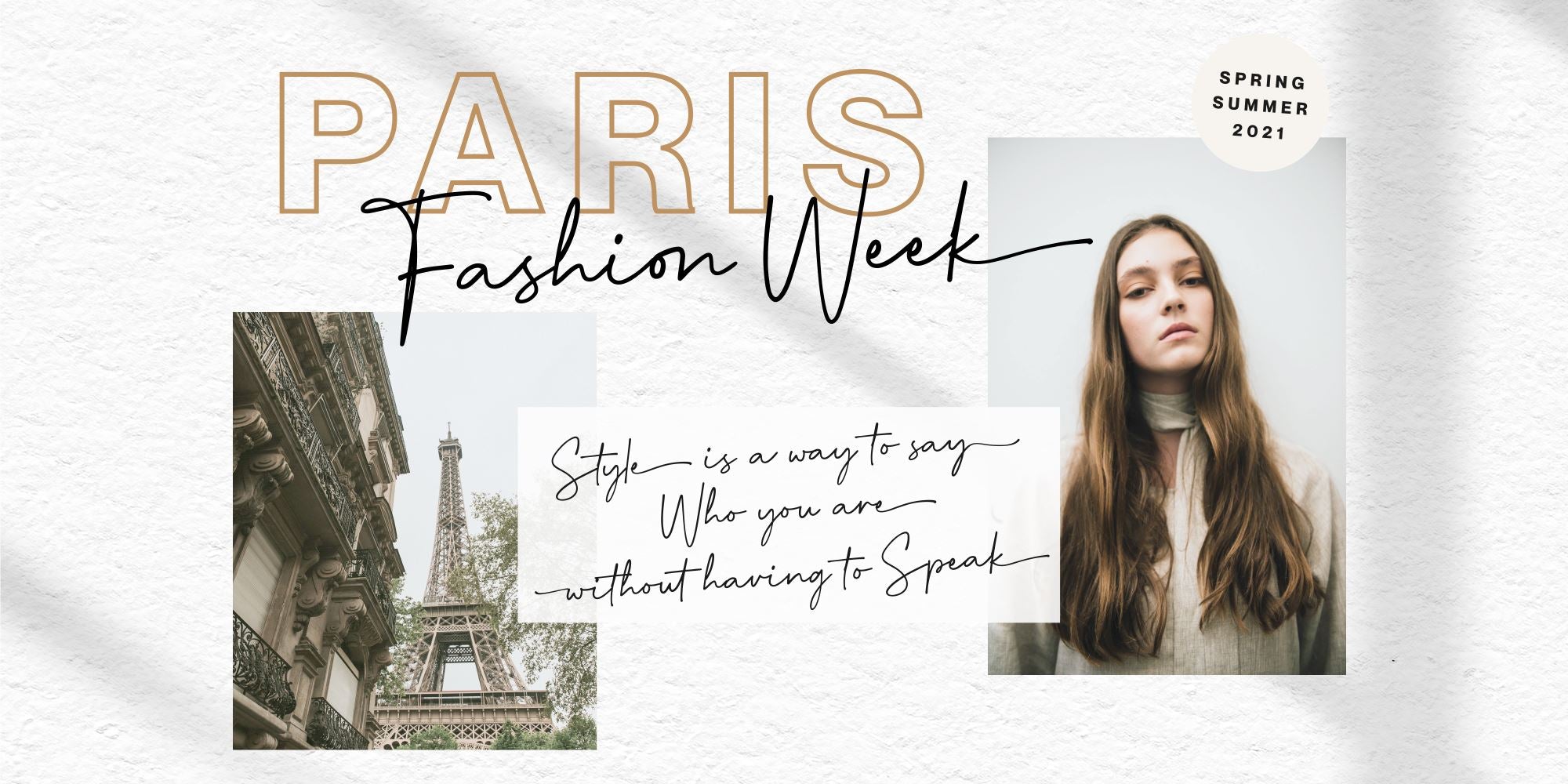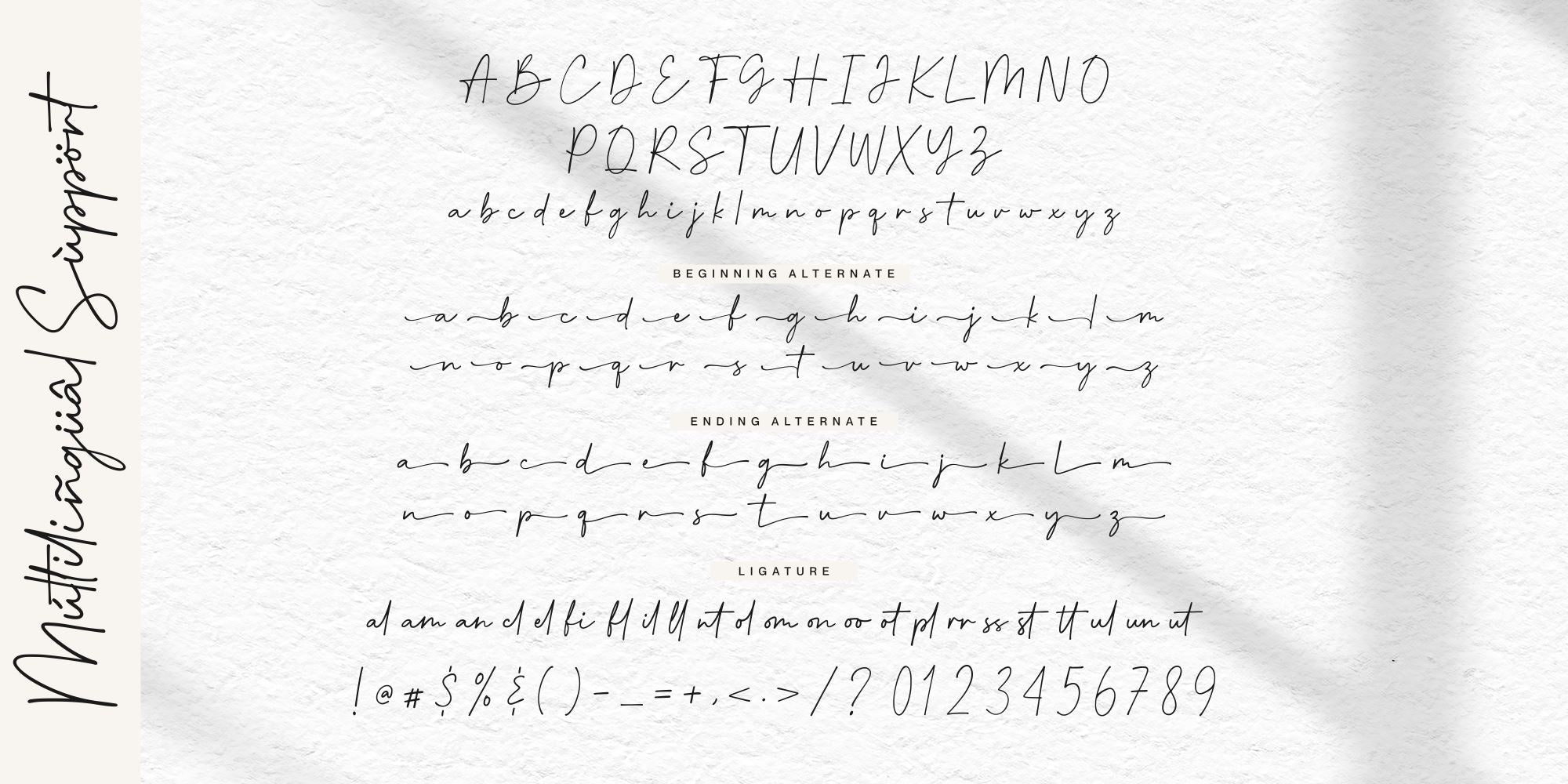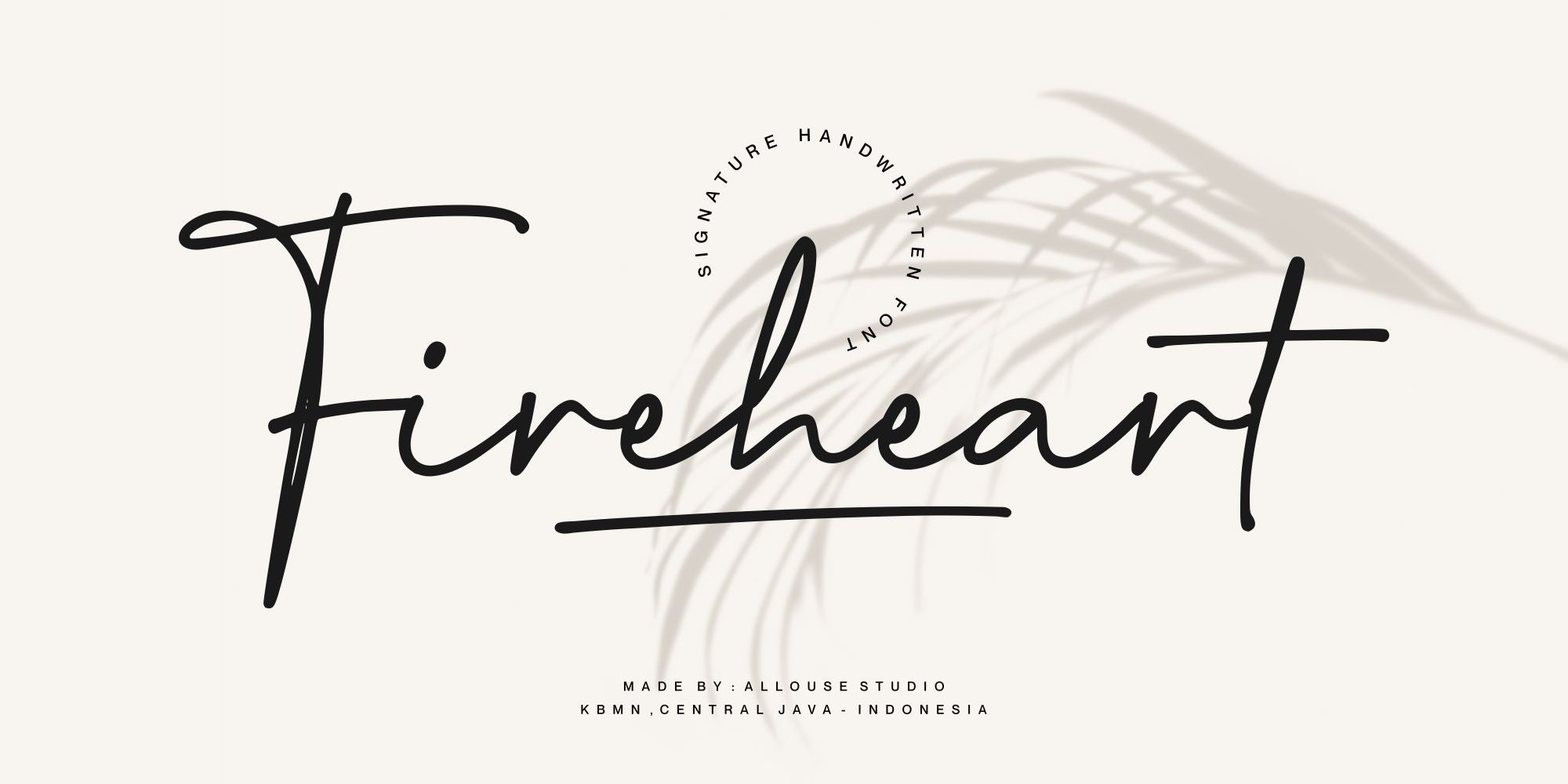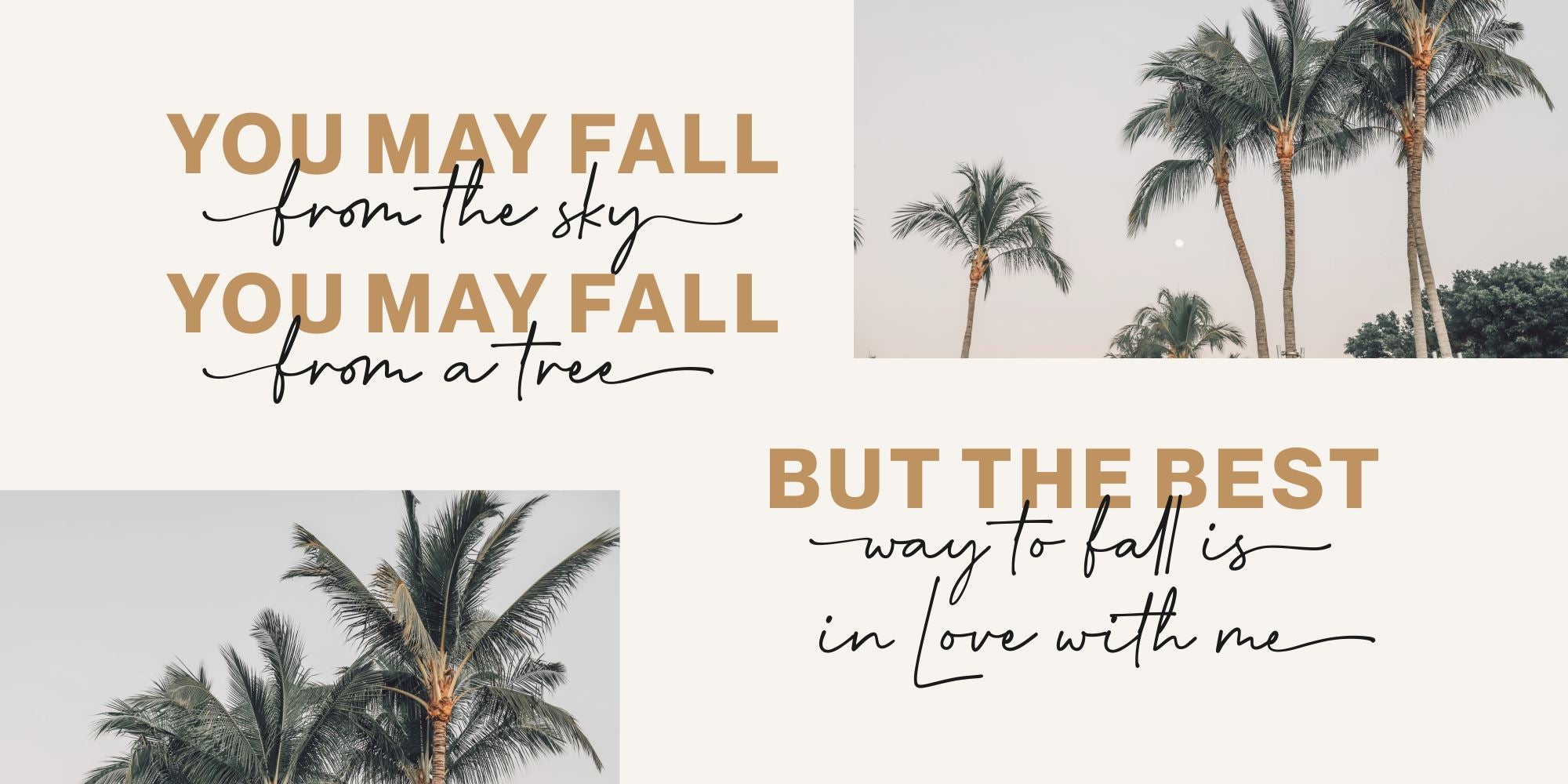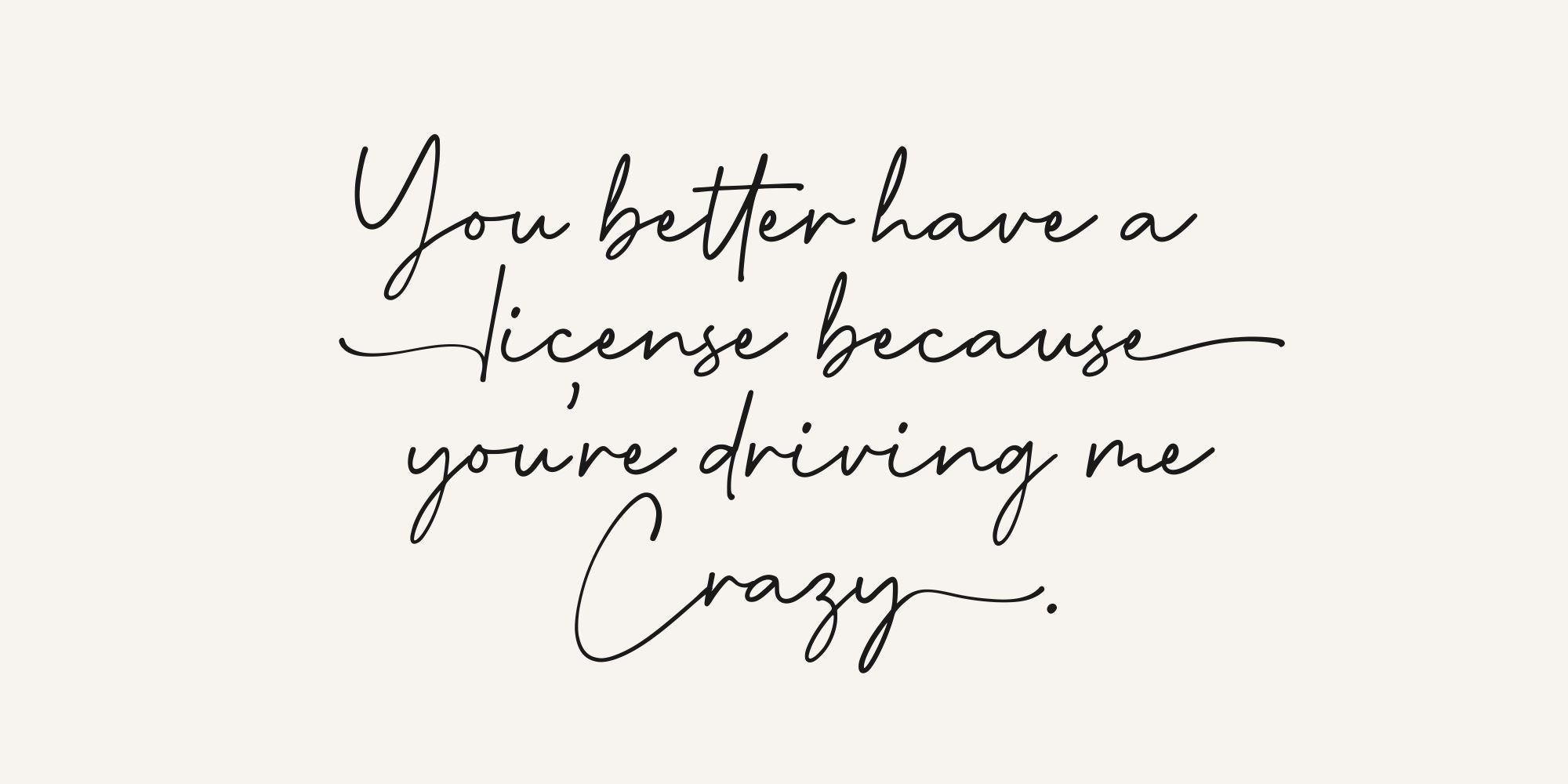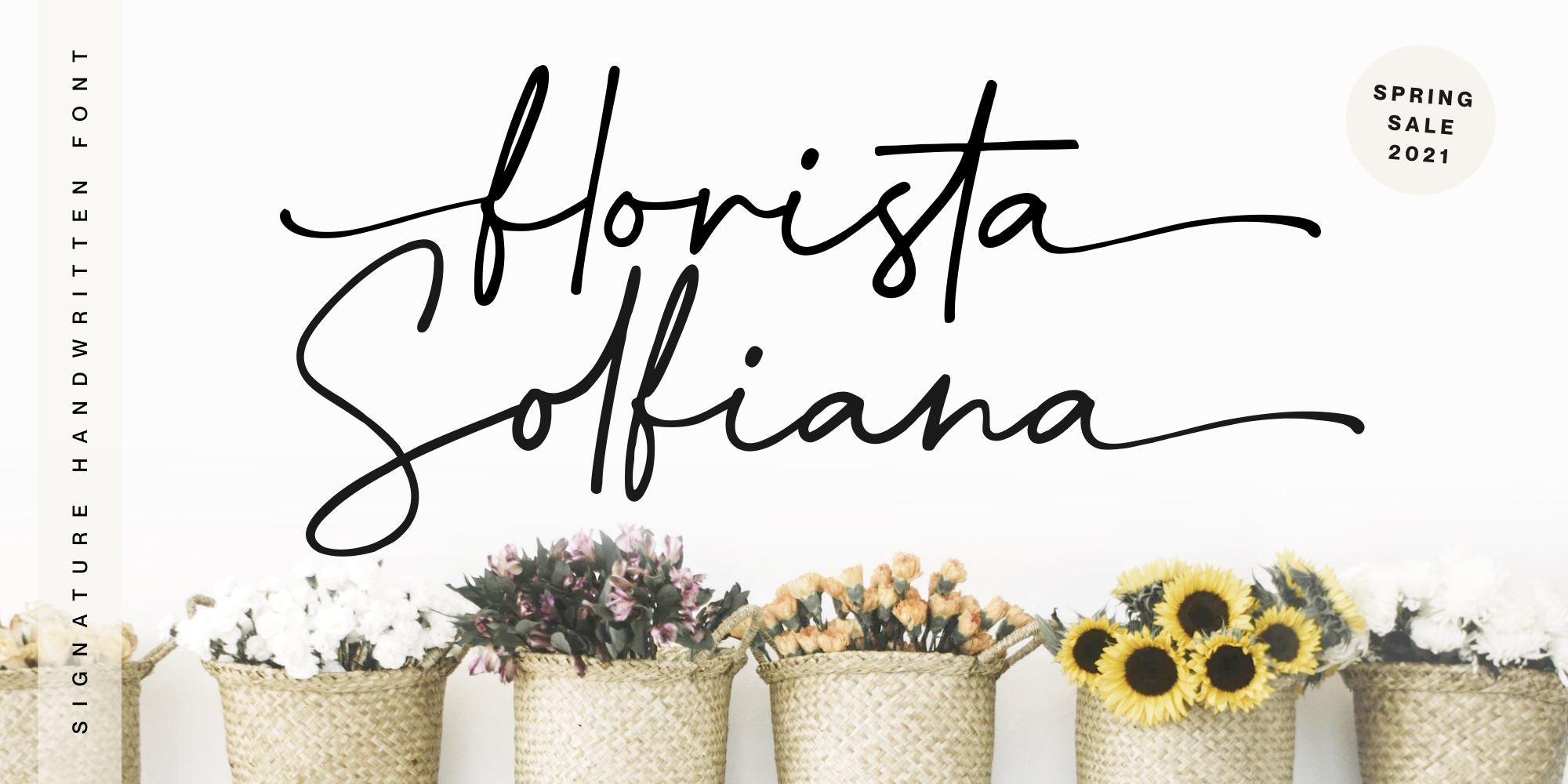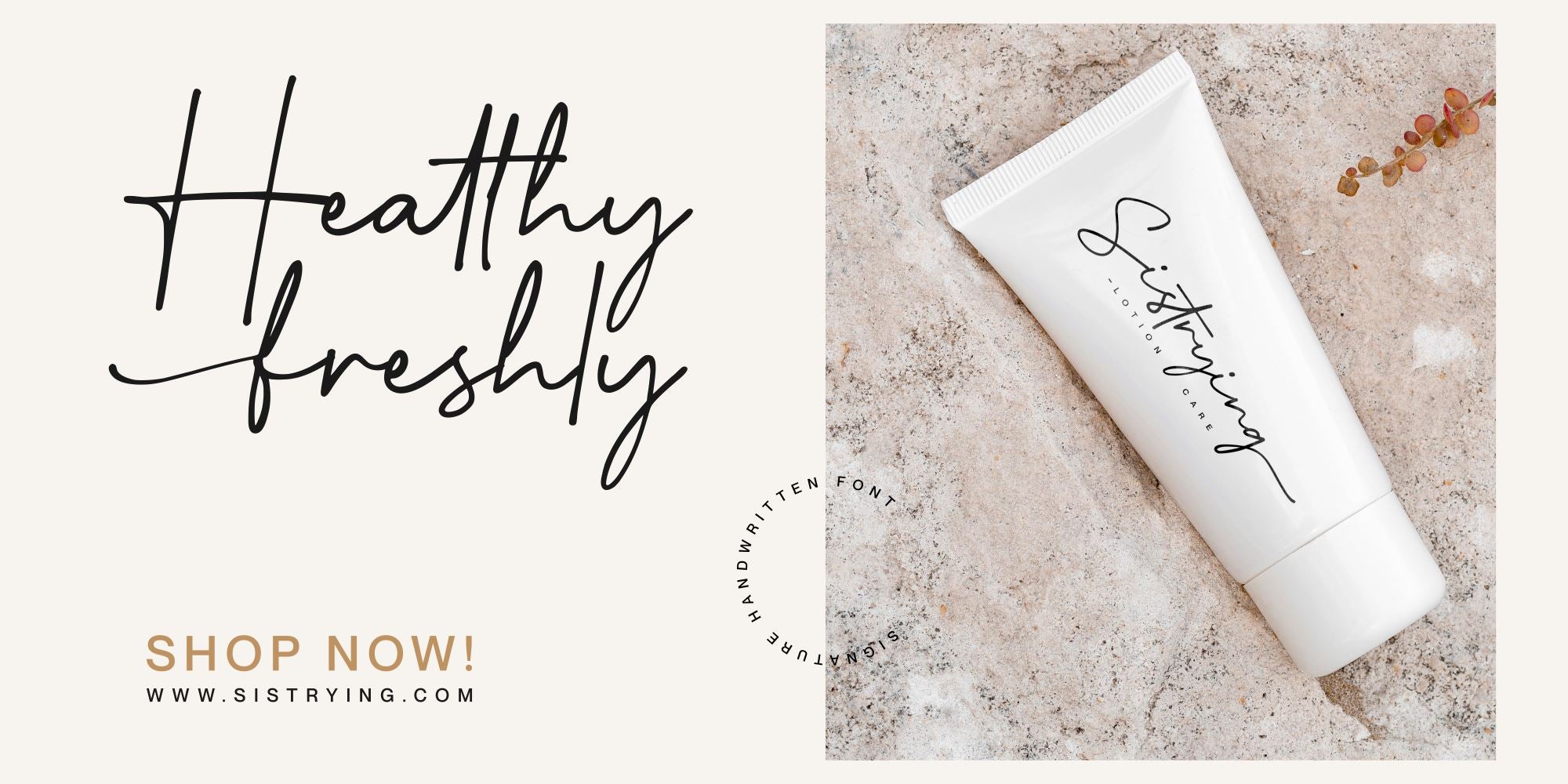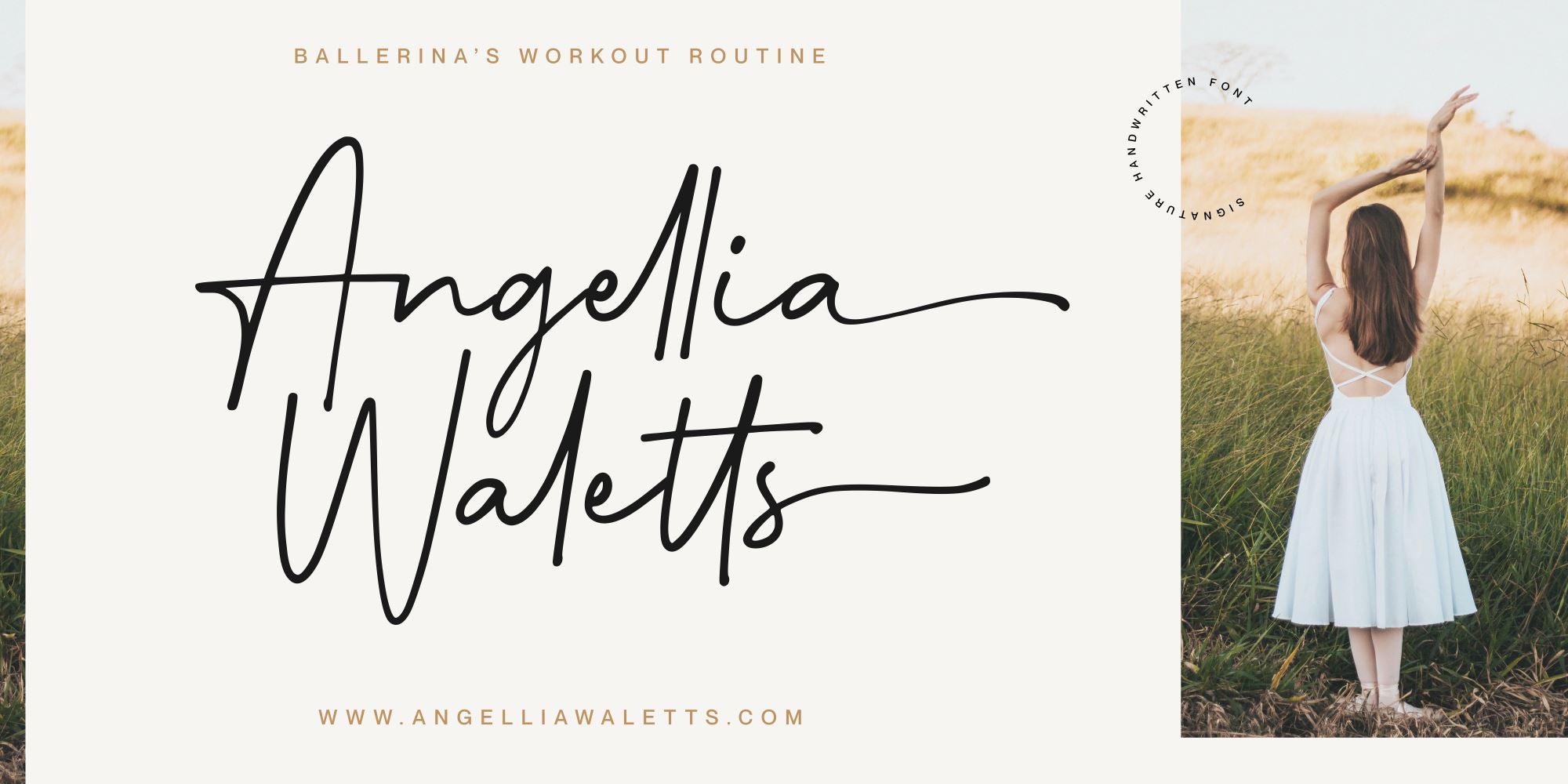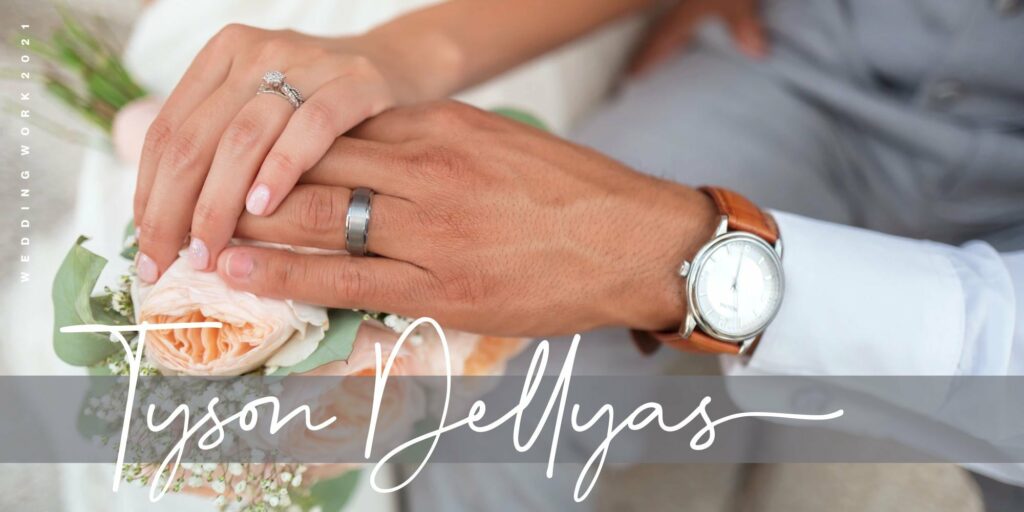
Fireheart
About Fireheart
Proudly Present, Fireheart a Signature Handwritten Font that will give you a natural & organic impression. Fireheart is perfect for any titles, logo, product packaging, branding project, megazine, social media, wedding, or just used to express words above the background. Fireheart come with ligatures, stylistic alternates, beginning and ending swash, also Multi-Lingual Support. We highly recommend using a program that supports OpenType features and Glyphs panels like many of Adobe apps and Corel Draw, so you can see and access all Glyph variations. Enjoy the font, feel free to comment or feedback, send me PM or email. Thank You!